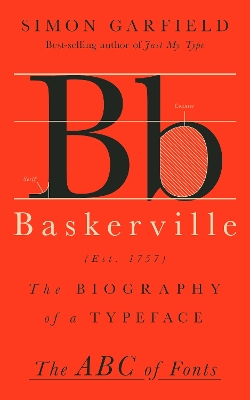
When Baskerville was first created in 1757, there was concern that it would damage readers’ eyes with its combination of thin and thick strokes and tapering serifs. Yet 250 years later, it remains one of the most commonly used typefaces in books of all kinds. As best-selling author Simon Garfield tells it, the tale of this elegant typeface is one of painstaking dedication. The font’s creator, John Baskerville, was a maverick lacquer maker and master printer who made it his life’s mission to achieve the font’s perfection. His efforts culminated in his magnificent Bible, acclaimed as the finest ever made. Garfield explores why Baskerville’s own body was dug up and buried many times before finally being allowed to rest in peace, and examines his legacy through the work of his wife, Sarah Baskerville—one of the first powerful women in the printing world—and the archivists and enthusiasts working to preserve the font’s original steel punches today.